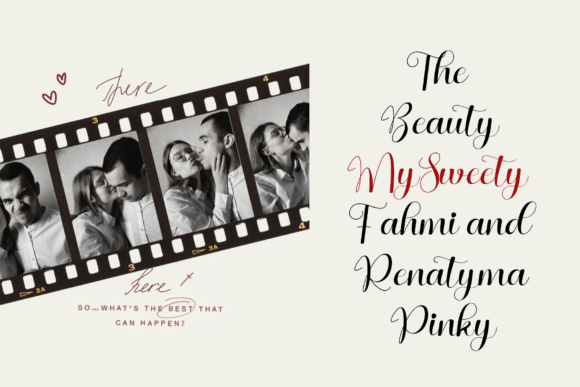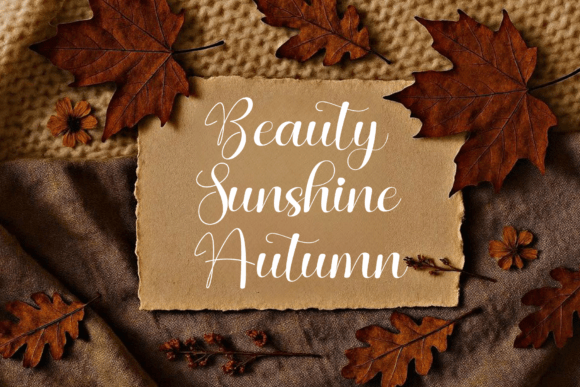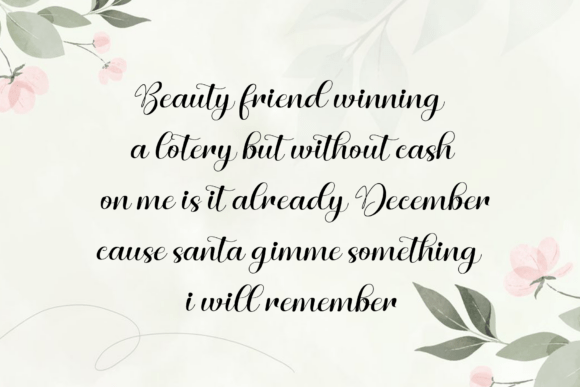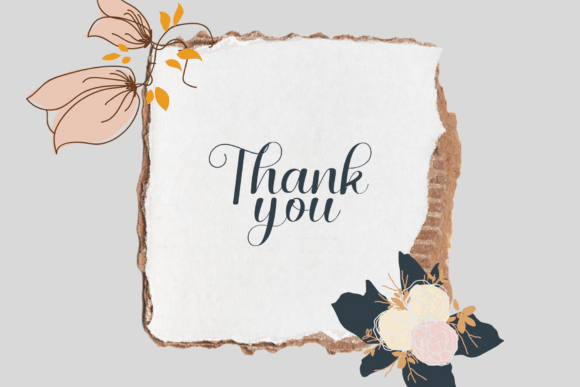
A Perfect Blend of Elegance and Functionality
As designers, we’ve all been there – staring at a blank canvas, trying to bring our ideas to life. It’s the moment when the perfect font can make all the difference. Imagine a handwritten script that exudes sophistication, yet remains effortlessly legible. For those seeking a unique touch, the Amanita Graduating Font is an ideal choice.
This stunning font combines smooth strokes and ornamental curves to create a truly feminine and professional look. Its consistent weight and clean connections ensure that the text remains easy to read, making it perfect for a variety of applications, from custom sublimation designs to boutique branding and personalized gifts. Whether you’re a seasoned designer or just starting out, the Amanita Graduating Font is a valuable addition to your toolkit.
Amanita Graduating Font Key Features
- Font Family: Amanita Graduating Font, a unique and customizable font designed for various applications.
- Resolution: Optimized for high-resolution displays, ensuring clear and crisp text rendering on modern devices and screens.
- Customizable: Offers advanced OpenType features, including ligatures, swashes, and contextual alternates, allowing for unique and personalized designs.
- Unique Characteristics: Features a distinctive graduating effect, where the letterforms change shape and size, creating a dynamic and eye-catching visual effect.
Amanita Graduating Font Review
I was excited to dive into the Amanita Graduating Font, and I have to say, there are some really great things about it ✨. The unique design and the way the font morphs into different styles as you go up the weight scale is really intriguing. It’s definitely a conversation starter, and I can see it being used in creative projects where you want to add a bit of whimsy.
- ✨ The font is highly customizable, with a wide range of weights and styles to choose from.
- ✨ The design is really well-executed, with a clear and consistent aesthetic throughout.
However, there are a few limitations ⚠️ that I wanted to mention. The font may not be the best choice for body text, as the morphing design can be a bit distracting and may make it harder to read. Additionally, the font may not be compatible with all operating systems or software.
- ⚠️ The font may not be the best choice for body text due to the distracting design.
- ⚠️ Compatibility issues may arise with certain operating systems or software.
Overall, I think the Amanita Graduating Font is a unique and interesting addition to any design project. While it may have some limitations, it’s definitely worth considering if you’re looking for something that will add a bit of flair to your work.
The Amanita Graduating Font is ideal for:
- Graduation announcements and certificates
- Formal event invitations and promotional materials